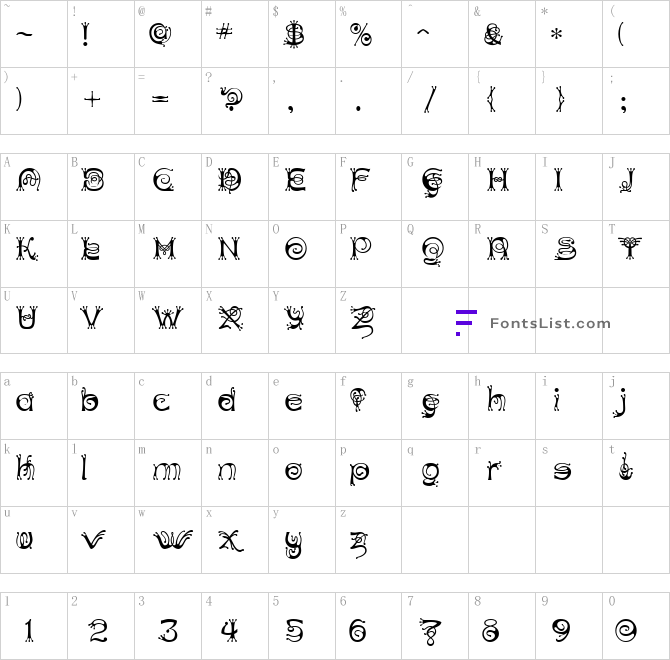
- Font Name:Antherton Cloister
Antherton-Cloister-copy-2-.ttf is a very beautiful artistic font, Antherton-Cloister-copy-2-.ttf is widely used in the design and printing of various books and pictures,Antherton-Cloister-copy-2-.ttf has a strong visual impact,Antherton-Cloister-copy-2-.ttf is a commonly used font in newspapers, magazines and books, and is used in posters, e-commerce Poster design, store design, logo design, font design and other fields.Antherton-Cloister-copy-2-.